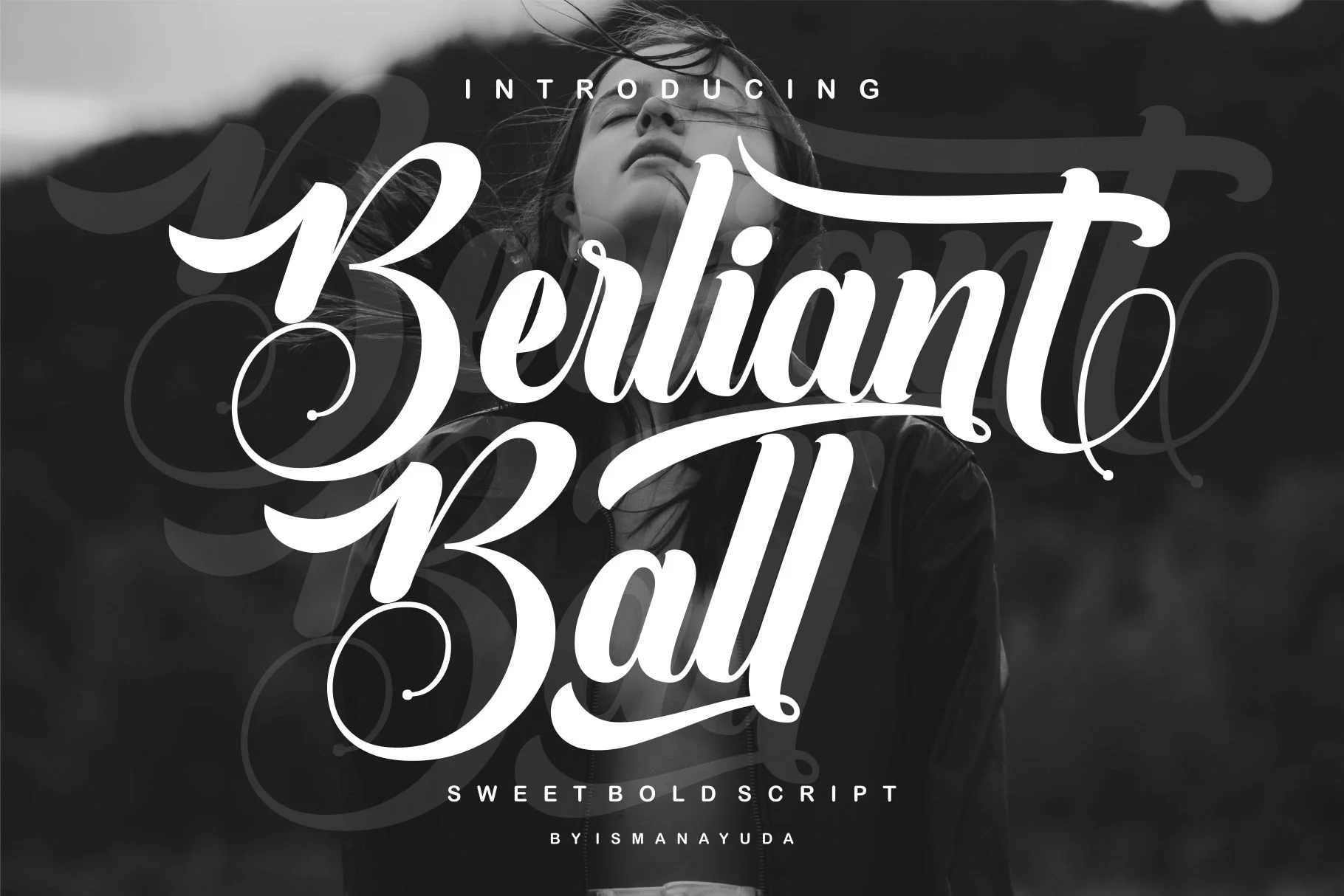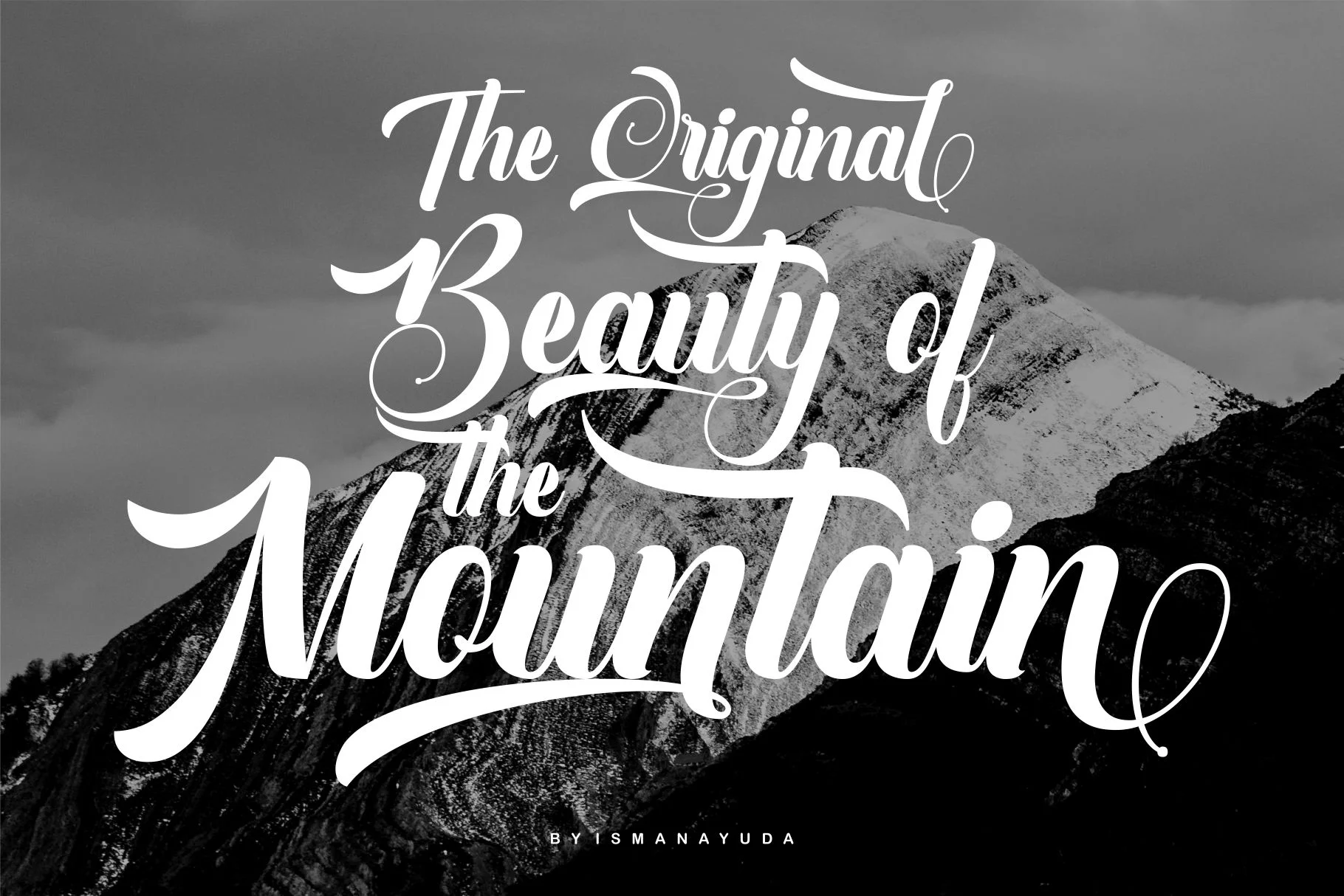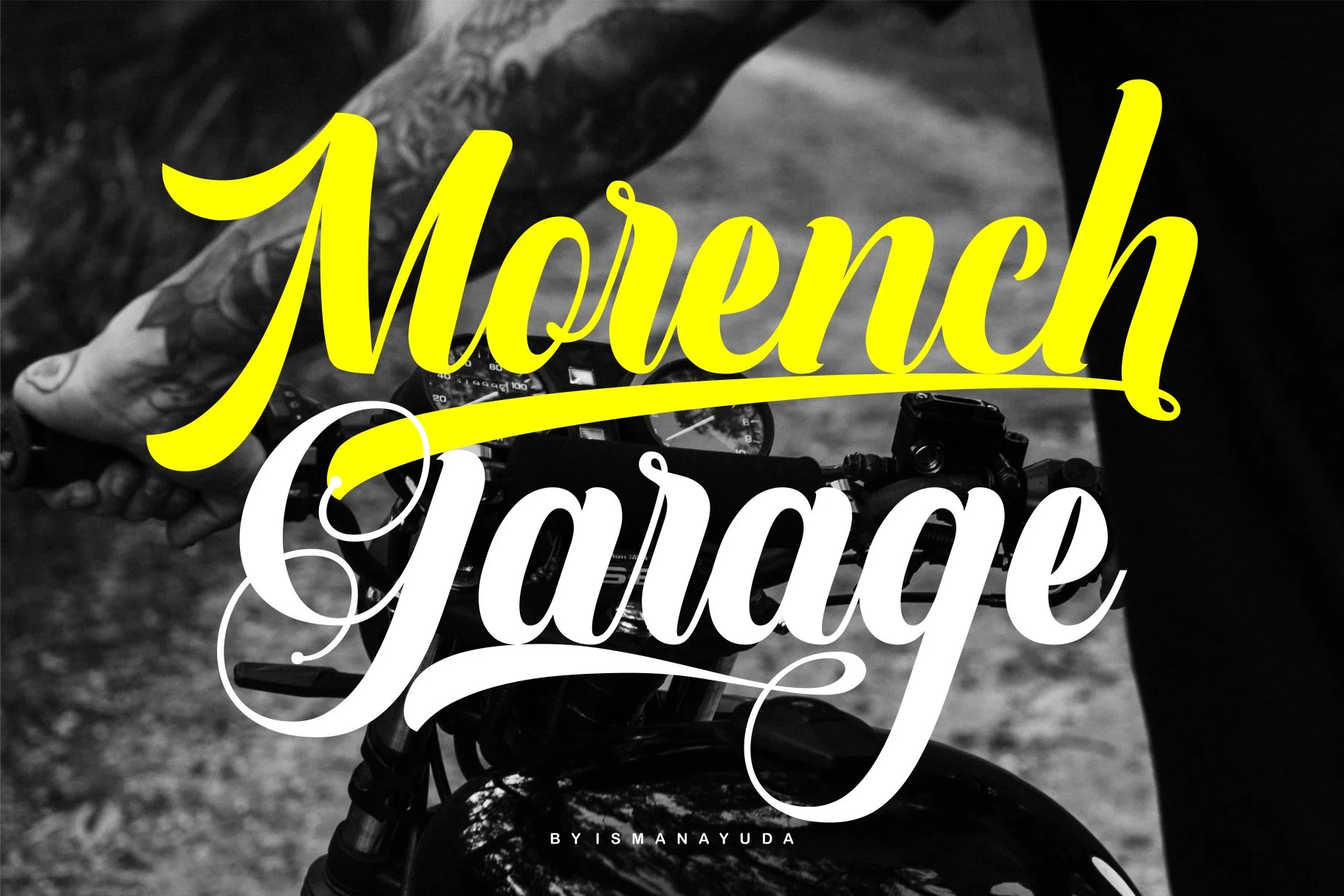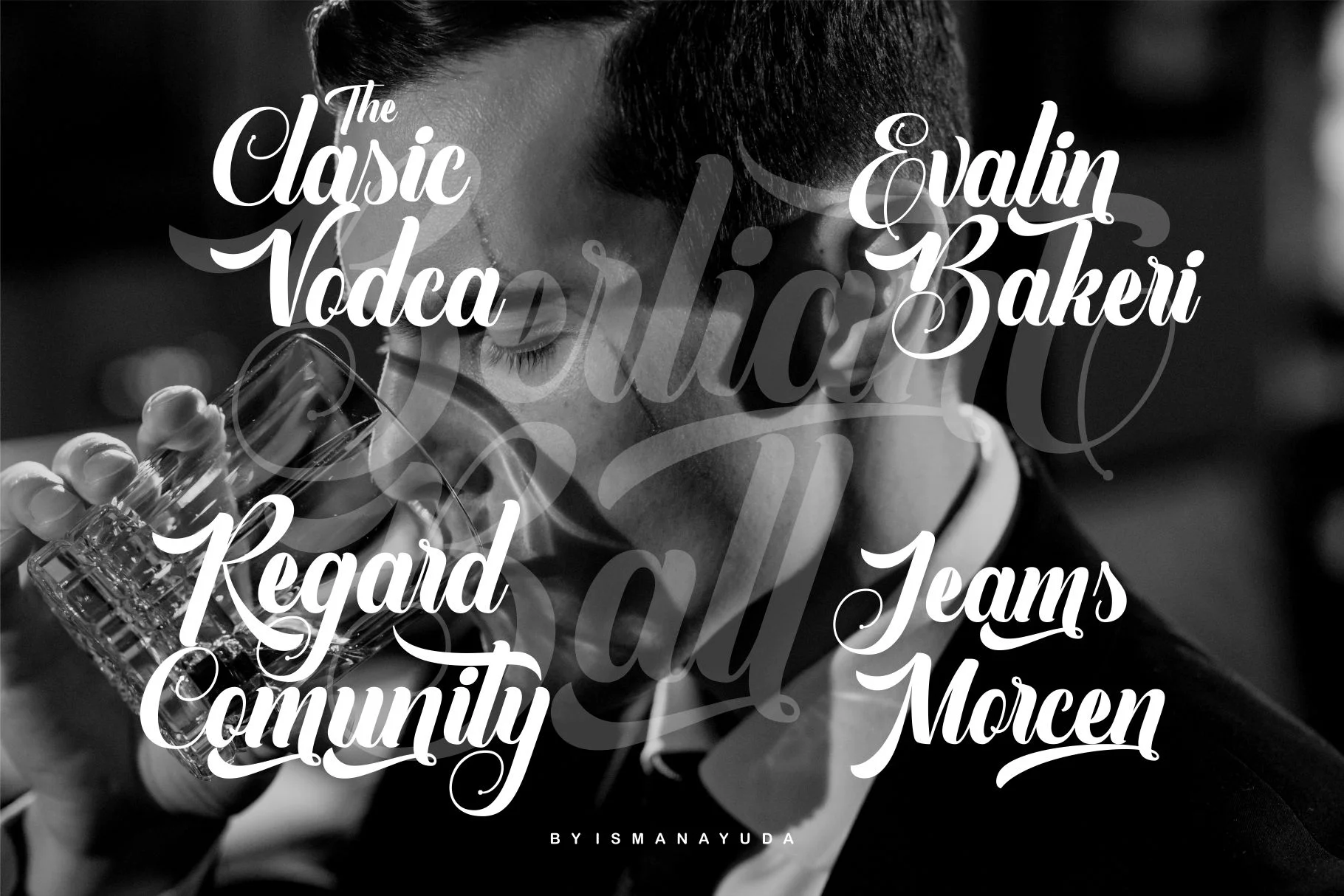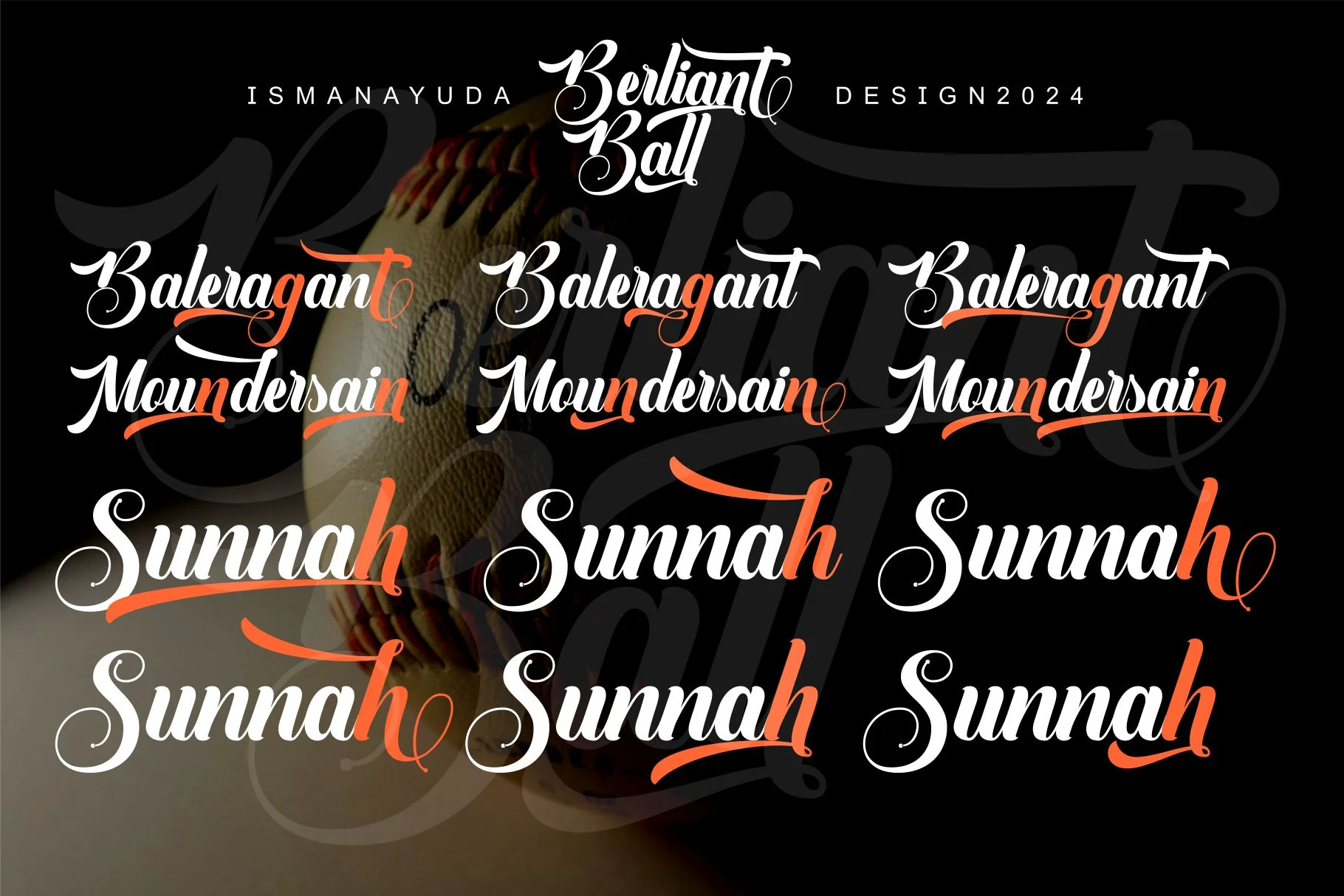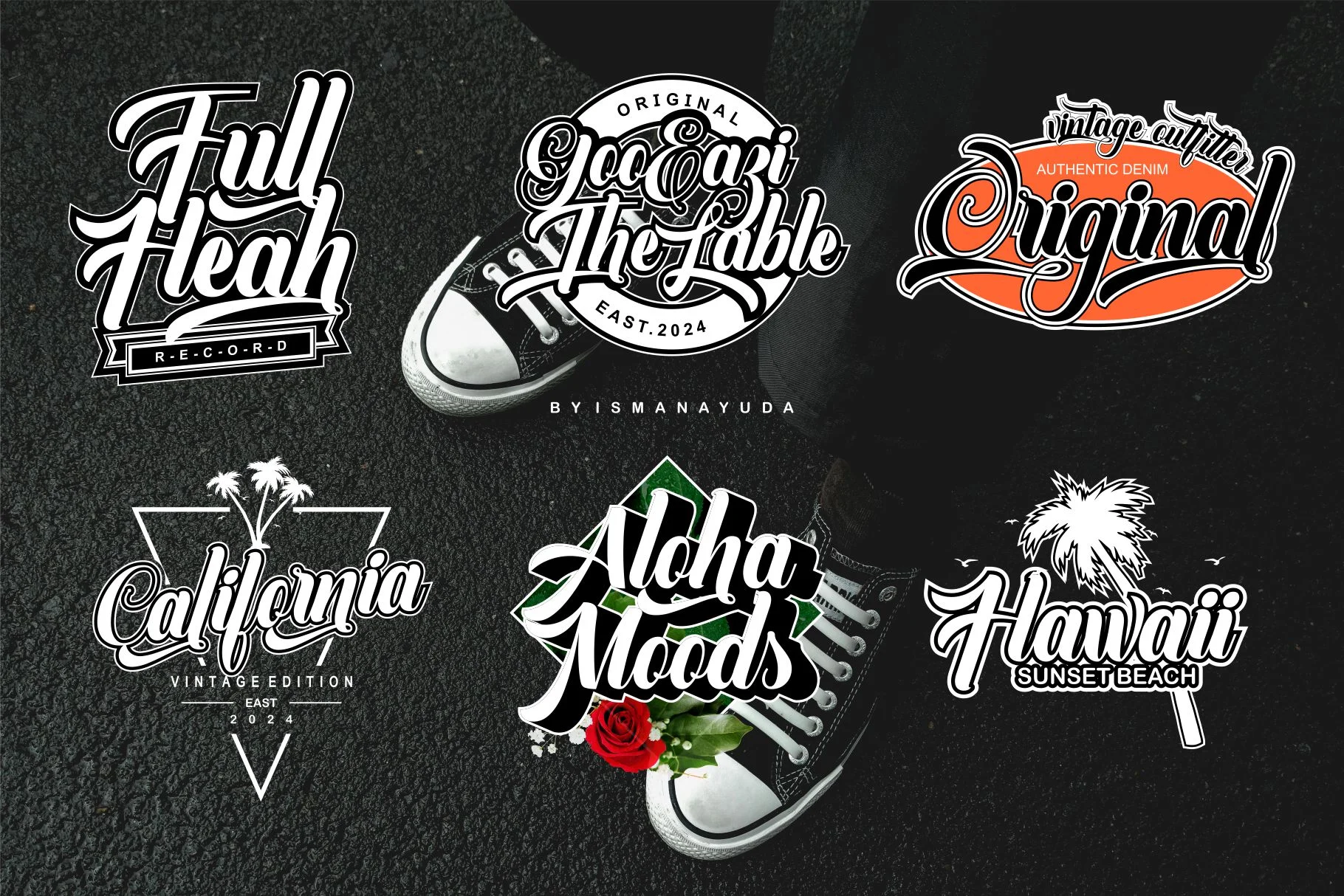
Berliant Ball
Berliant Ball is a charming and sweet bold script typeface designed by Ismanayuda. It features thick, fluid strokes with elegant, rounded curves that give it a playful yet sophisticated look. The font is characterized by its high legibility and dynamic flow, often incorporating stylish swashes and loops that mimic high-quality hand-lettering. Its bold weight makes it a perfect choice for branding, food and beverage packaging, wedding stationery, and creative social media graphics that require a friendly and modern aesthetic.